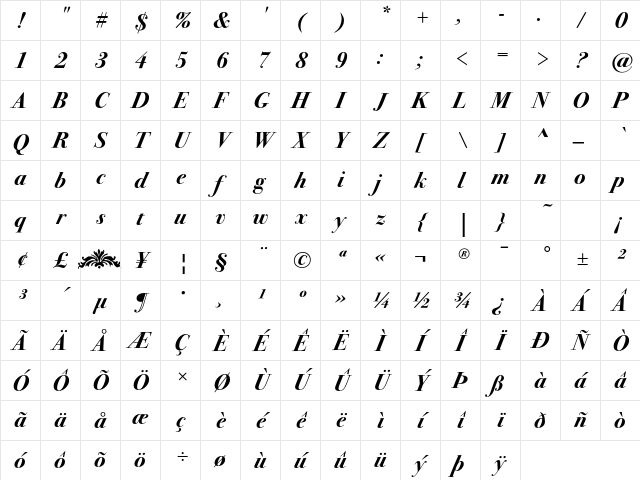
BodoniSeventytwoEF BoldIta Free Font
BodoniSeventytwoEF BoldIta
Style: BoldIta
BodoniSeventytwoEF Family
BodoniSeventytwoEF BoldIta
Design Context for BodoniSeventytwoEF
BodoniSeventytwoEF is a composed and adaptable typeface that performs quietly and consistently across a wide range of design contexts. Its bold stroke weight gives it real presence on the page.